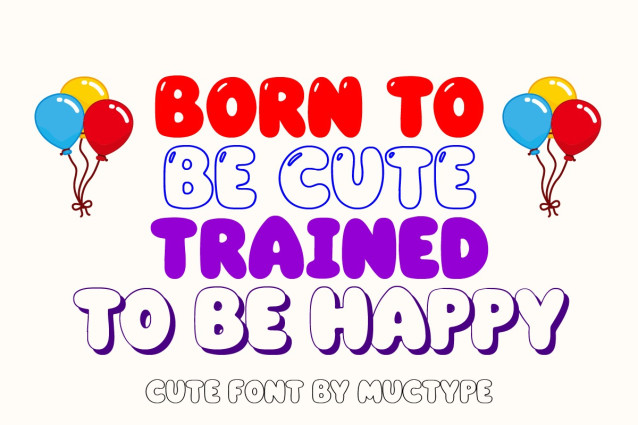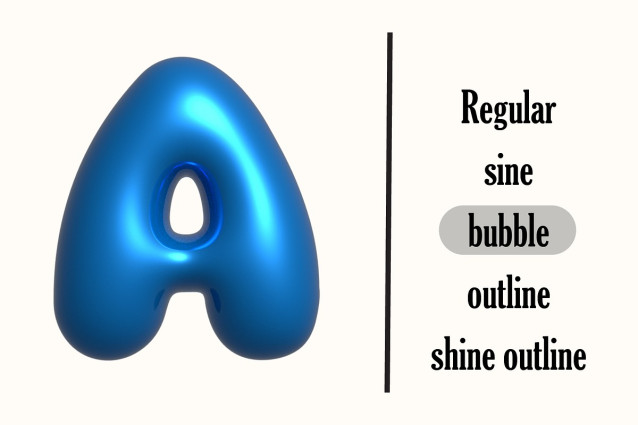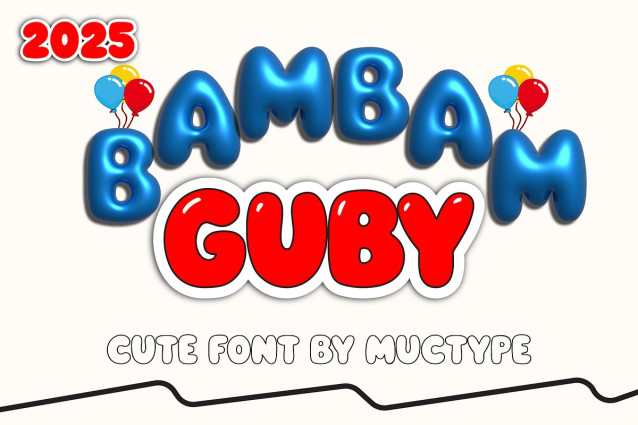
Guby Bambam Font
Guby Bambam Font – Bold 3D balloon SVG font, ready to turn heads 🙂 SVG fonts are rasterized bitmap image fonts – compatible with Photoshop CC 2017, Illustrator CC 2018 or Procreate 4.3 (or later) only. Maximum size: Designed for digital use up to 700 pixels high (lossless) and for print no larger than 5cm at 300dpi (lossless). Not recommended for use at larger sizes. Instructions on how to tweak the colors are available. (Photoshop only).